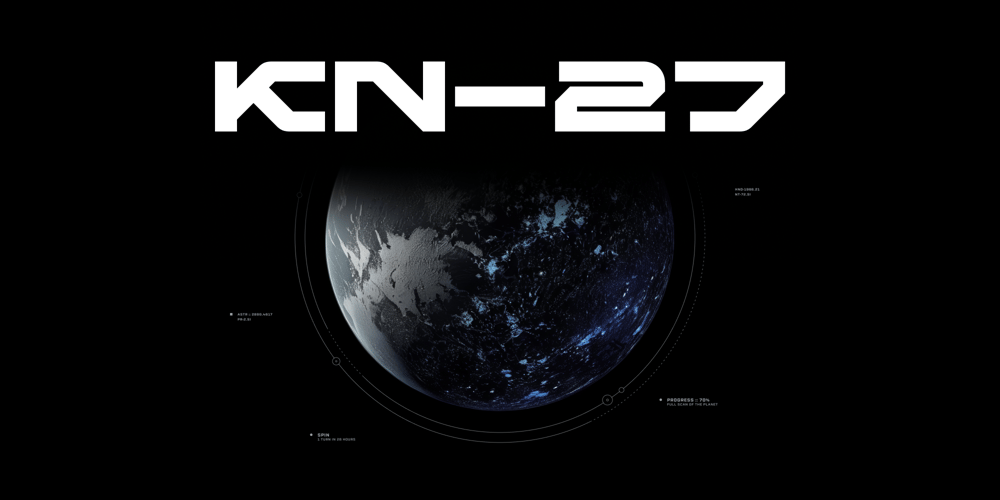
KN27 Font Family was designed by Eugene Bunin and published by Harvester Type. KN27 contains 1 styles and family package options. KN-27 is the official font of the mission of the same name, for the exploration of deep space and planets suitable for human life and its needs. New Horizons has requested fonts for all of its missions and the Kreiner (KN-27) represents the planet. A mix of cyberpunk and science fiction, which conveys this font and branding. We tried to create an aesthetic, neat font that would fit perfectly into the sci-fi design of any project. Greater language support, including Cyrillic, increases the scope of the font. The font perfectly conveys the aesthetics of the distant future, space exploration and unexplored worlds.The KN-27 will look great on a spaceship, tablet, watch, clothing, logo, branding, packaging, posters and wherever you need to convey the aesthetics of science fiction.For all questions: bunineugene@gmail.com